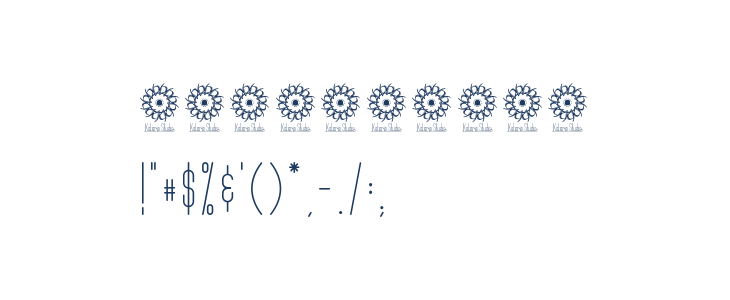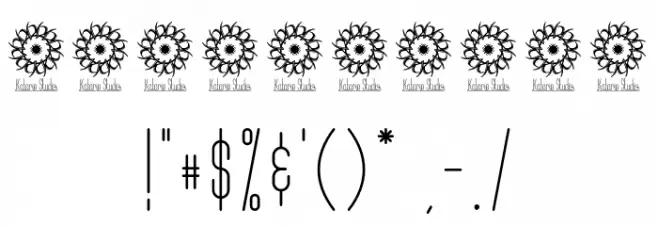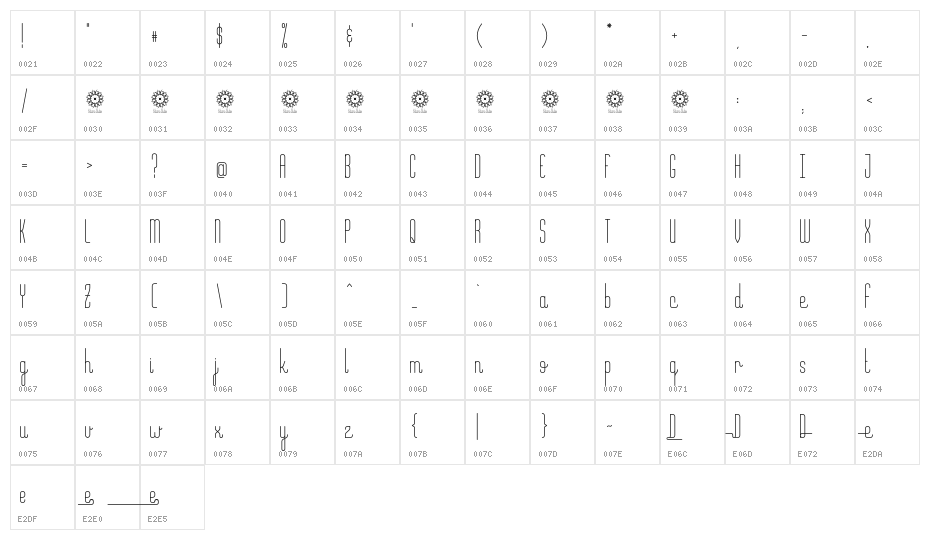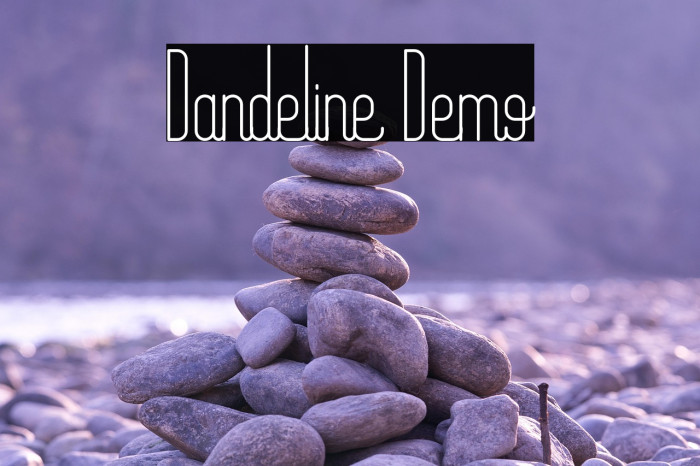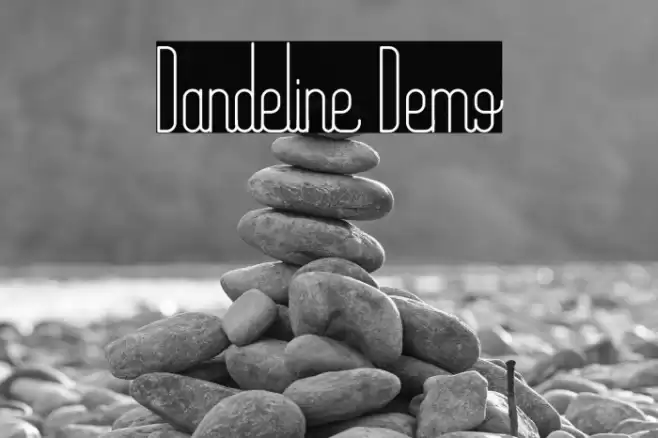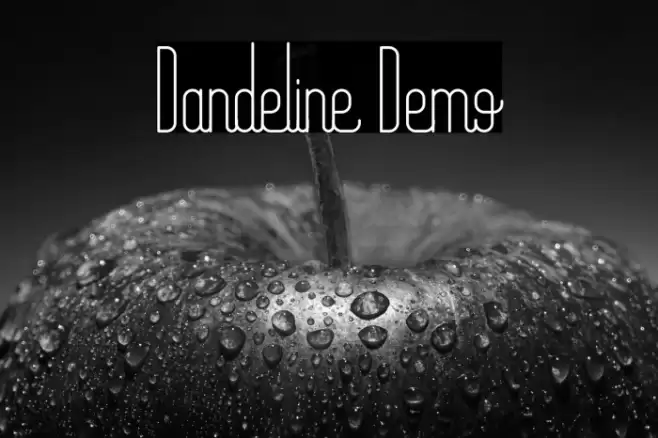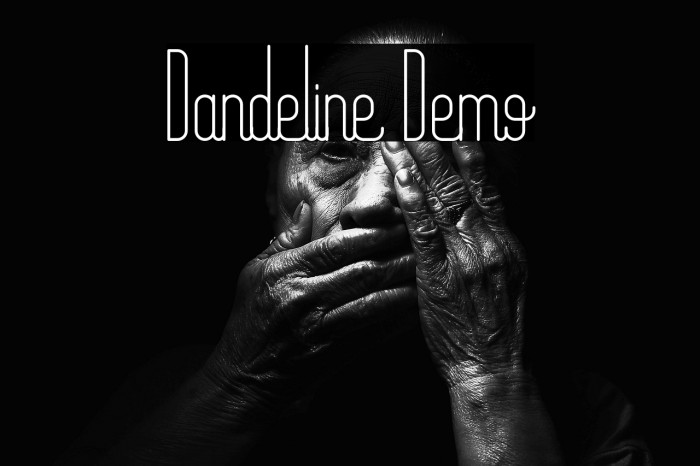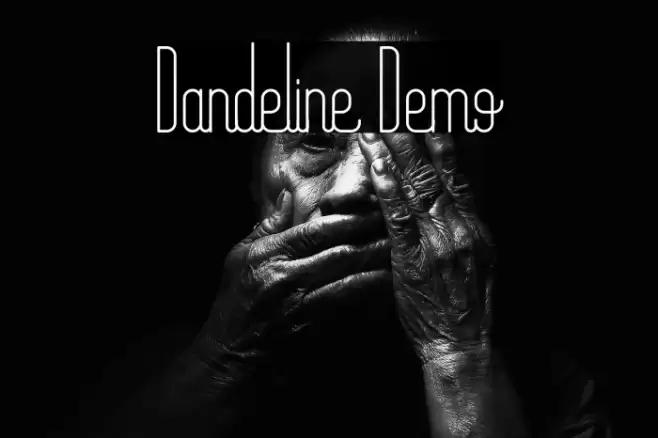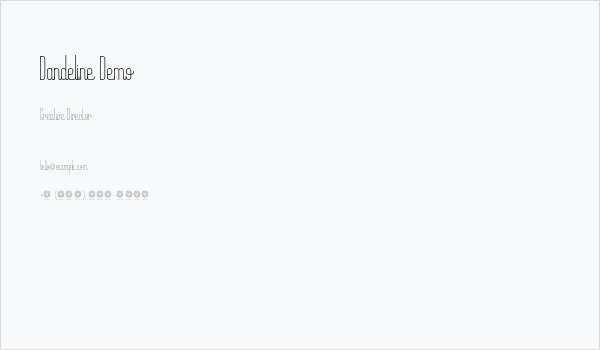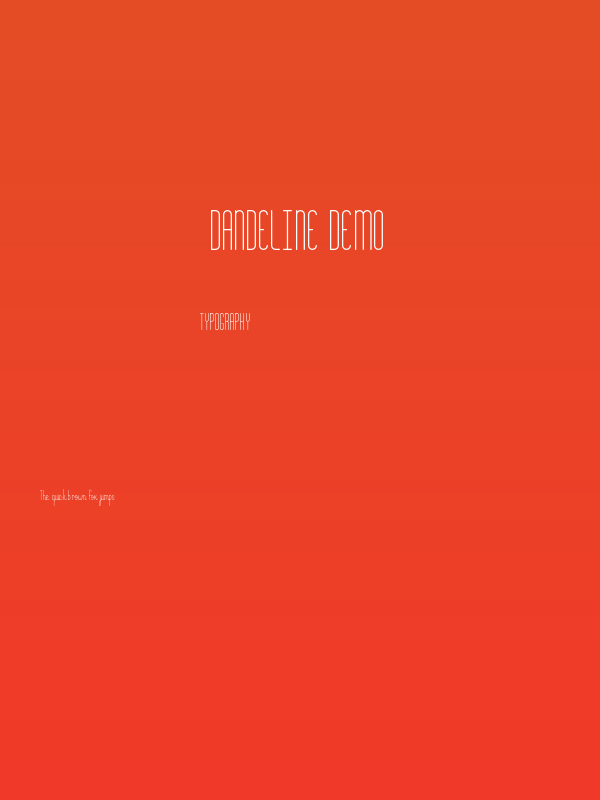
Dandeline Demo Font
Dandeline Demo Description
This font features a unique and elegant design with tall, narrow letters that have a distinct, elongated appearance. The characters are crafted with a thin, consistent stroke width, giving them a refined and sophisticated look. The uppercase letters maintain a uniform height, while the lowercase letters exhibit a playful, slightly whimsical style with subtle curves and loops. The font includes a full set of uppercase and lowercase letters, numerals, and a selection of special characters. Its clean lines and modern aesthetic make it suitable for a variety of design applications.
| Proposed Projects | Ideal for fashion branding, wedding invitations, elegant product packaging, and editorial design. |